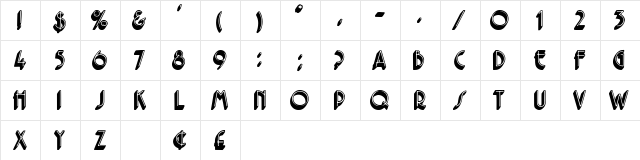
Ferio Display Caps SSi Regular Font Preview
Ferio Display Caps SSi Regular
Design Context for Ferio Display Caps SSi Typeface
Ferio Display Caps SSi is built around its visual character rather than neutral utility — its distinctive forms are designed to make an impression at display sizes.
Font Pairing: Pair with a clean neutral sans-serif for body copy to let Ferio Display Caps SSi's character lead without overwhelming the composition.
Pro Tip: Treat Ferio Display Caps SSi as the centrepiece of your typographic hierarchy. One strong heading set in a decorative face can carry an entire layout.